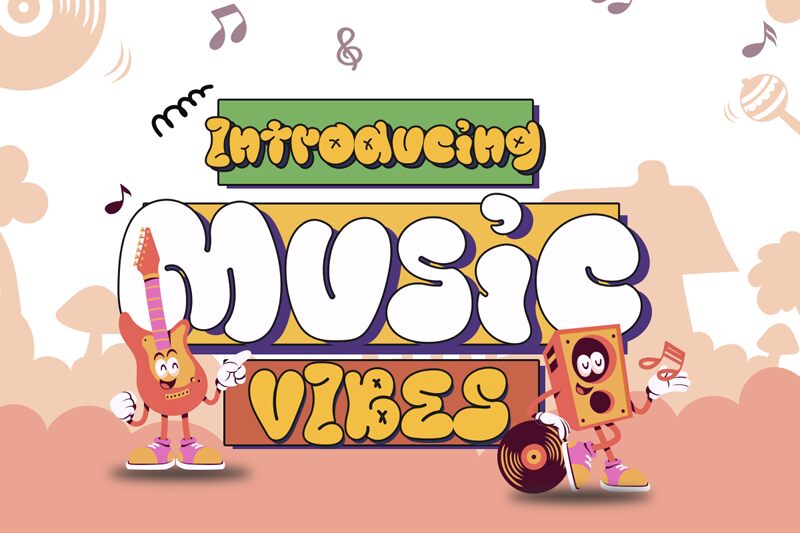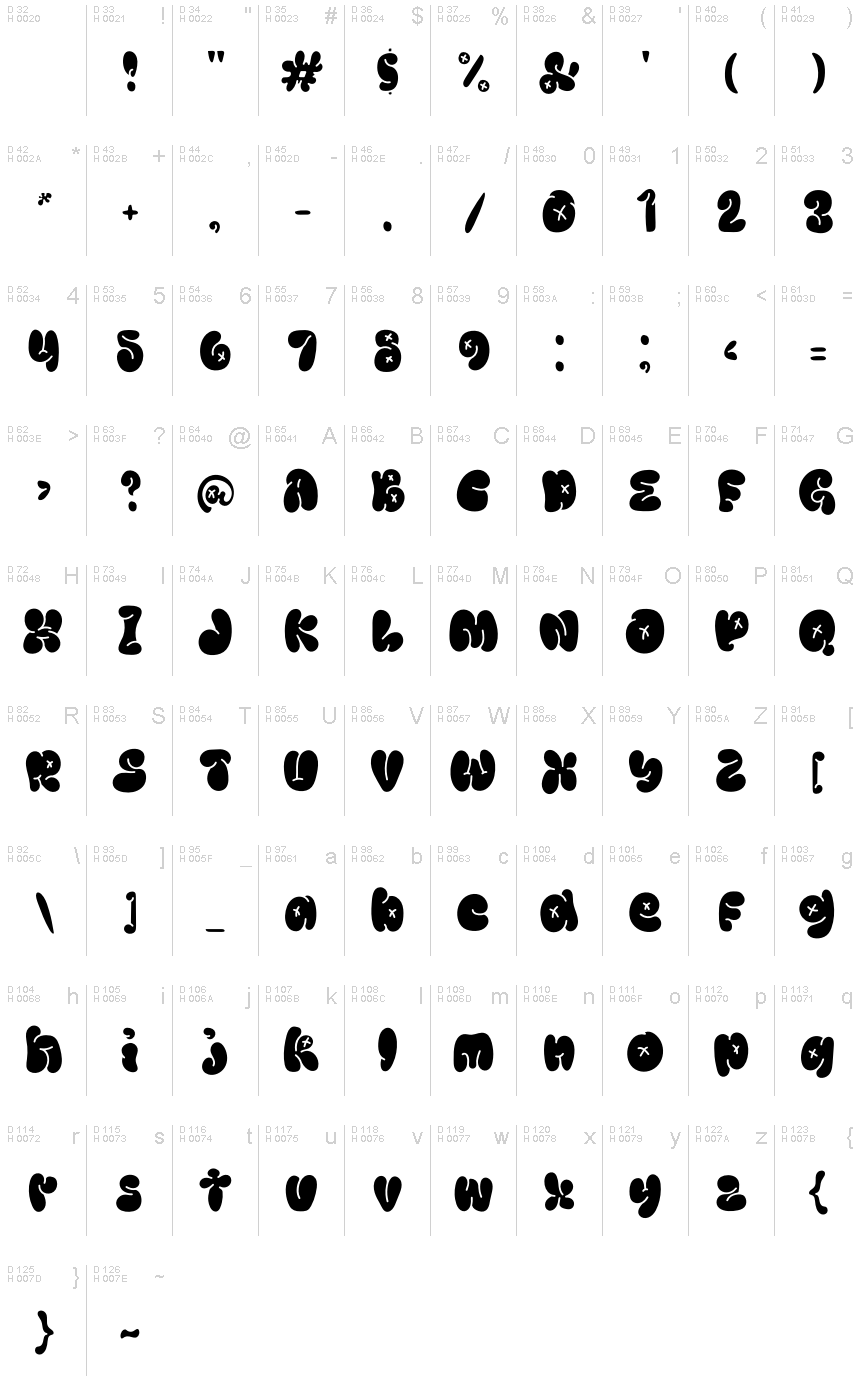
Music Vibes
Music Vibes is a captivating display font created by the talented designer Mocha Frappuccino of Lettercorner Studio. With its whimsical, cartoon-inspired aesthetic, this bold typeface immediately captures the attention. The playful, organic letterforms exude a sense of energy and vibrancy, making it an ideal choice for projects that aim to convey a lighthearted, artistic vibe.
This font's versatility shines through its ability to seamlessly integrate into a wide range of design applications, from eye-catching logo designs and playful branding materials to vibrant event posters and engaging social media content. Its distinctive character allows designers to infuse their creations with a touch of playfulness and personality, making it a valuable asset for those seeking to craft memorable visual experiences.